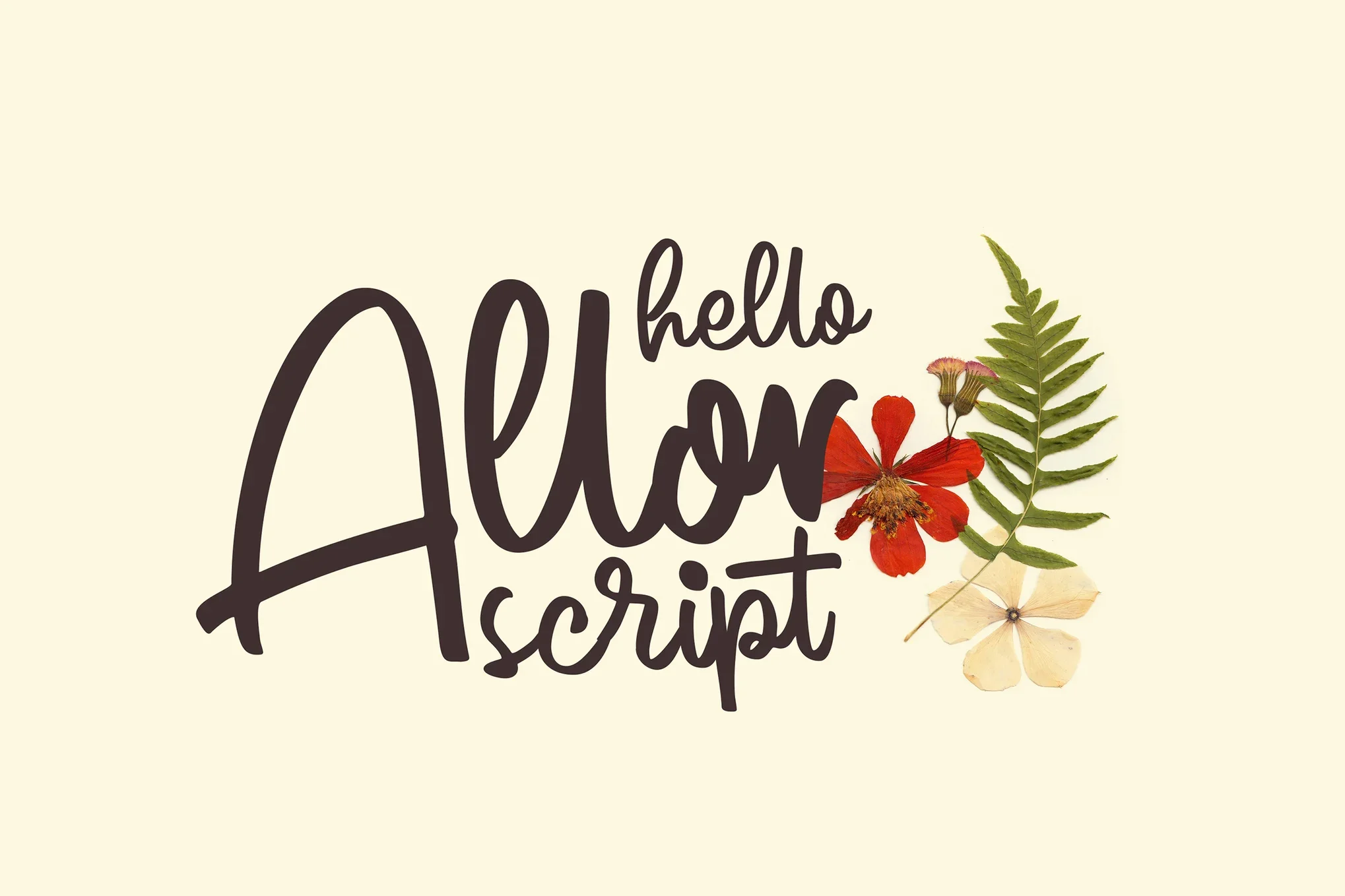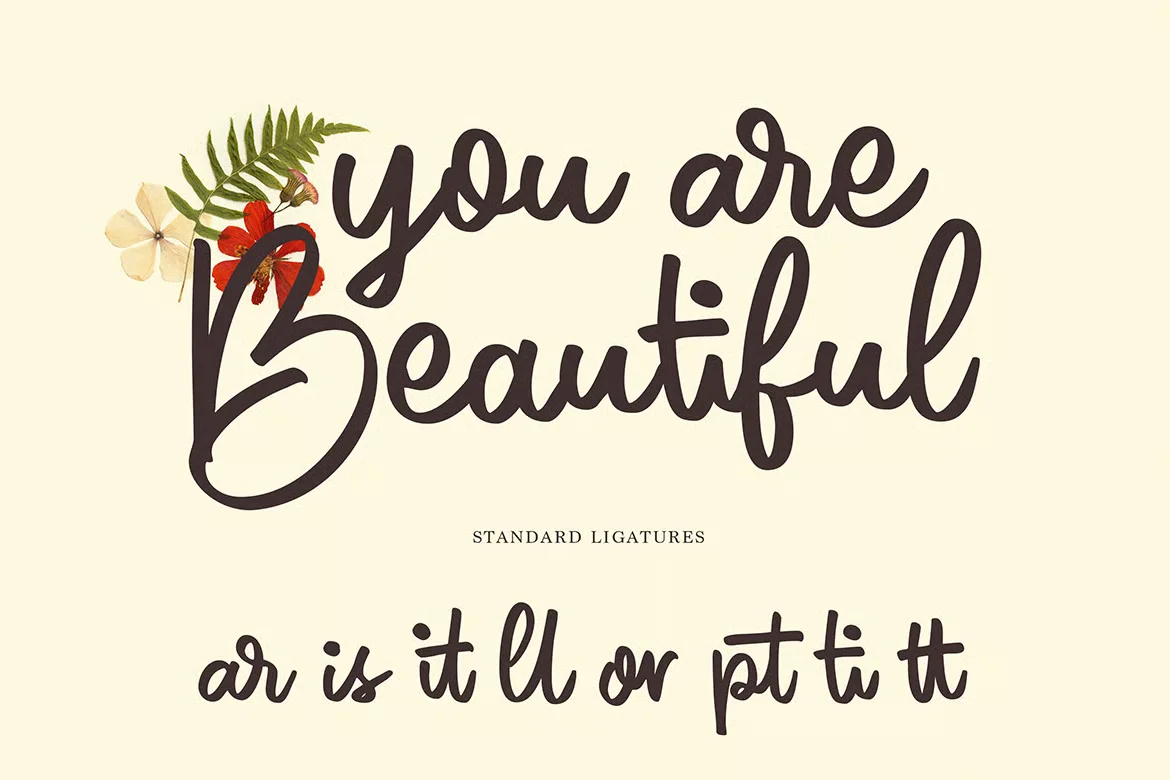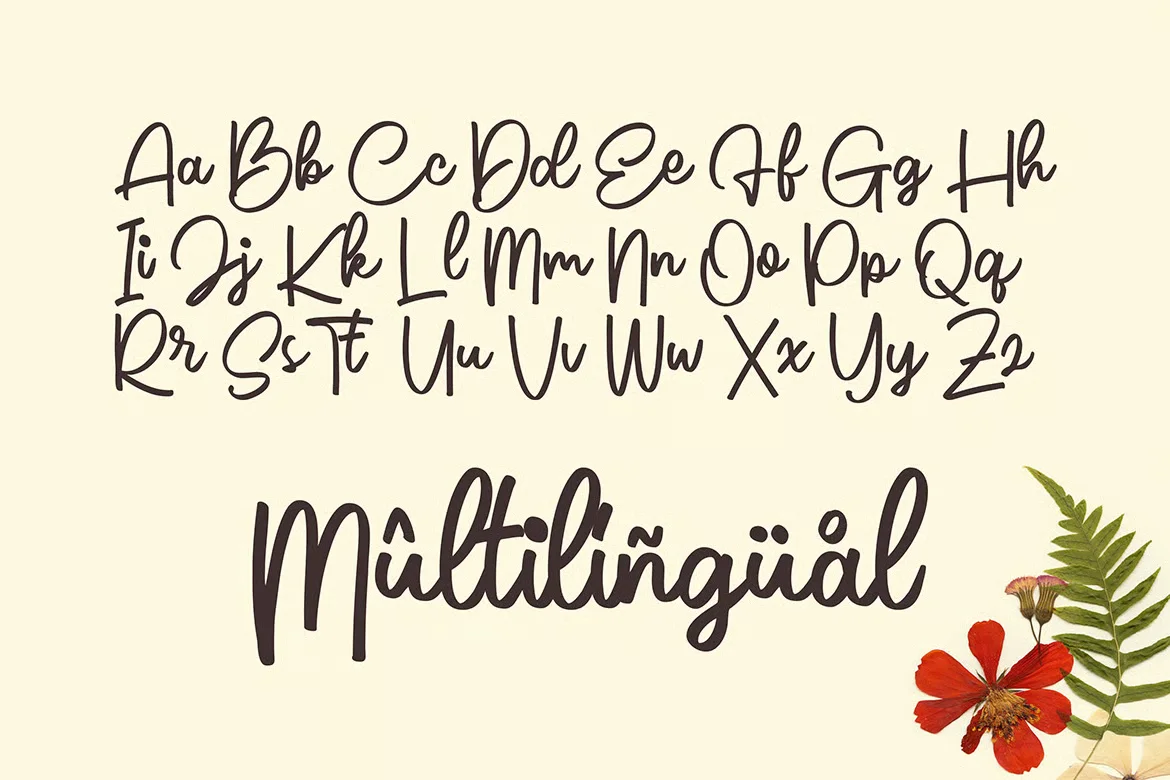
Allor Script Font
I’m a typographer and graphic designer who always keeps an eye out for typefaces that bring warmth to a brand. During a recent branding project, I stumbled on Allor Script Font while exploring options for a packaging layout. I was looking for something handwritten but polished. After testing a few styles, this one felt just right. I used it on the main product name and across social media headers. The texture, flow, and character were exactly what I needed. This review is a personal take on how the font worked for me and why it might work for you too.
Allor Script Font is a hand-drawn script font designed for emotional impact. The strokes feel natural, not mechanical. This makes it perfect for designs that need a human touch. Each letter flows smoothly into the next, and the style carries a warm handwritten look without feeling messy. Created by Graptailstudio, the font reflects careful attention to detail. The font family includes Allor Script Regular Font and supports a full character set with uppercase, lowercase, numbers, and punctuation. It’s a complete set made for real design use. This font is also available for Western European and other language sets, making it a solid choice for global projects. If you’re looking to download Allor Script, it’s easy to install and lightweight for both print and digital work. The name may not be as known as other similar fonts, but its charm holds up. I used it through design software without any issues, and the curves stayed sharp in both vector and raster formats.
The standout feature of Allor Script Font is its handwritten quality. This is not just a decorative script, it’s a font that is perfect for branding and storytelling. It comes with built-in ligature support, which helps recreate a true hand-drawn feel. The letters adjust naturally depending on what comes before or after. This brings a real-life rhythm to typed text. Whether you’re working in OpenType supported software or basic layout tools, the output looks professional. I paired it with minimal sans-serif body text, and the contrast was beautiful. You can use Allor Script Regular across headers, short quotes, or logo marks. It adapts well depending on the font style you choose. The font file comes clean and ready to go, with no extra work needed to start. You simply download and install. The base file includes all standard glyphs and looks balanced across different sizes. Even in smaller text, the details don’t break. I found this very helpful during print testing. There are many fonts without this level of care, but Allor handles it well.
Where can you use this font?
Allor Script Font is a great choice when your project needs emotion and flow. It works best in branding that calls for a soft touch—wedding invitations, packaging, or quote graphics. I used it for a skincare label and it instantly added personality. This font fits perfectly on product packaging, especially when the brand wants to feel handmade or boutique. If you design for beauty, wellness, or artisanal food, it’s a strong pick.
It also shines on social media headers. The natural curves catch attention without looking too heavy. I tested it on Instagram story templates and carousel slides. Even with limited space, it stayed clear and easy to read. It’s also a smart fit for creators designing cards, headers, or promotional posts. The font is a handwritten font, which makes it more emotional than geometric scripts. Whether you’re designing in Adobe tools or any platform that supports OpenType, the features stay intact. The font supports multiple languages, which is rare for this script regular font style. If you’re searching for a free font or a polished font download for personal work, Allor gives you a lot to work with. There are plenty of similar fonts, but few match the same balance of style and legibility.